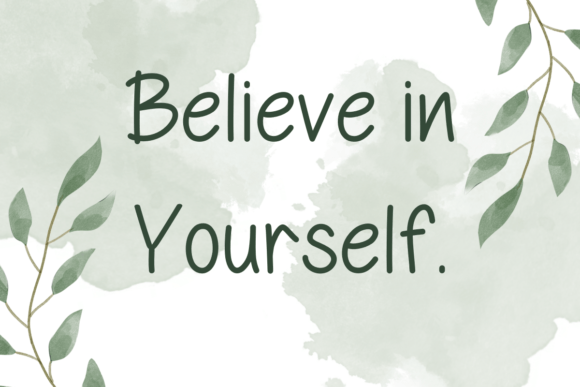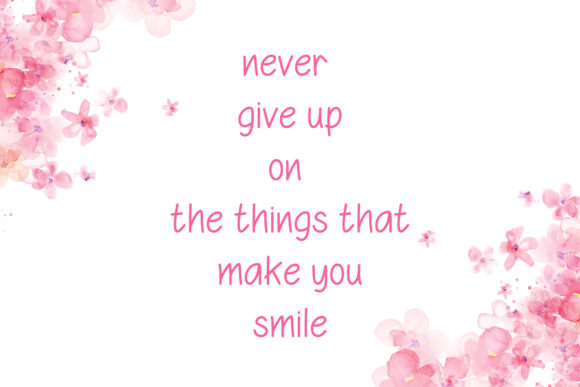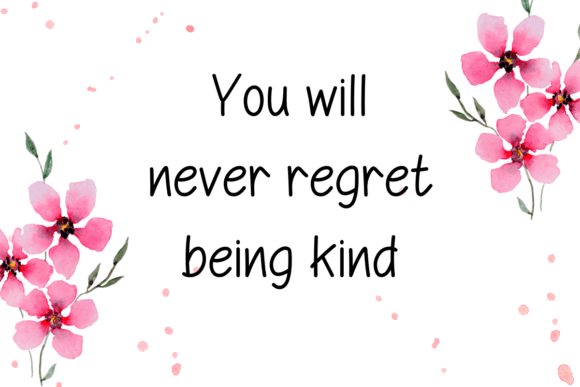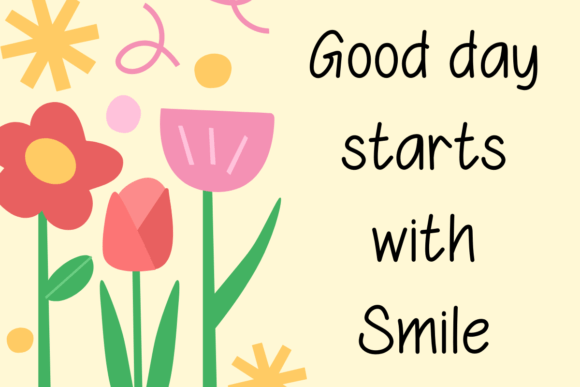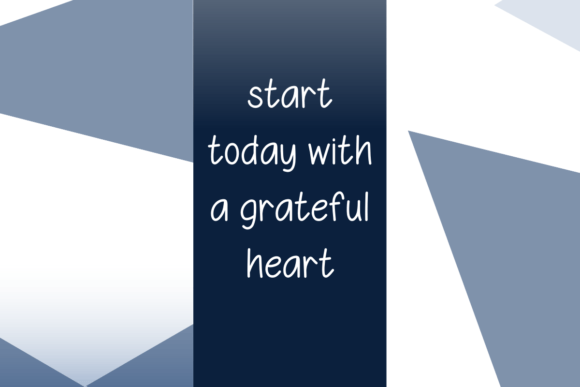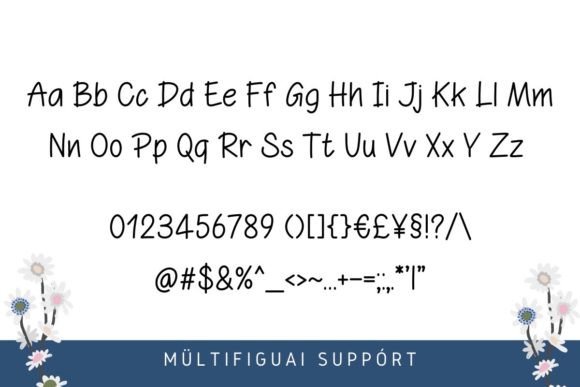
Introducing Friends Font: The Ultimate Groovy Handwritten Display Font
Are you a designer or crafter looking for a font that can add a touch of personality and whimsy to your creative projects? Look no further than Friends Font, a cute and groovy handwritten display font that’s perfect for a wide range of applications. From designing T-shirts and tote bags to creating wedding invitations, logos, and cards, Friends Font is the ideal choice for anyone who wants to make their ideas stand out and shine.
What Makes Friends Font So Special?
Friends Font is a unique and stylish handwritten display font that’s been carefully crafted to bring a touch of nostalgia and playfulness to your designs. Its groovy and laid-back vibe makes it perfect for designers and crafters who want to create fun, youthful, and eye-catching designs that appeal to a wide range of audiences.
Whether you’re designing for a client or working on a personal project, Friends Font is the perfect choice for anyone who wants to add a personal touch to their work. Its versatility and flexibility make it suitable for a wide range of applications, from fashion and lifestyle to wedding and event design.
What Can You Use Friends Font For?
The possibilities are endless with Friends Font! This amazing font can be used for:
- Designing T-shirts, hoodies, and other apparel
- Creating custom tote bags, hats, and stickers
- Designing wedding invitations, save-the-date cards, and other event materials
- Developing logos, branding materials, and packaging
- Crafting cards, quotes, and other stationery items
- And so much more!
Why Choose Friends Font?
So, why should you choose Friends Font for your next design project? Here are just a few reasons:
- Unique and stylish: Friends Font is a one-of-a-kind font that’s sure to make your designs stand out from the crowd.
- Easy to read: Despite its playful and handwritten style, Friends Font is surprisingly easy to read, making it perfect for use in a wide range of applications.
- Versatile: Friends Font can be used for both personal and commercial projects, and its flexibility makes it suitable for a wide range of design applications.
- Groovy and fun: Let’s face it – Friends Font is just plain fun! Its groovy and laid-back vibe makes it perfect for designers and crafters who want to add a touch of personality to their work.
Here are a few tips for getting the most out of Friends Font:
- Experiment with different colors: Friends Font looks great in a wide range of colors, so don’t be afraid to get creative and try out different hues and combinations.
- Play with font sizes: Friends Font can be used at a variety of font sizes, from large and bold to small and subtle.
- Add some texture: Consider adding some texture or patterns to your design to give it an extra boost of personality and style.
If you’re looking for a font that can add a touch of personality and whimsy to your designs, look no further than Friends Font. This cute and groovy handwritten display font is perfect for designers and crafters who want to create fun, youthful, and eye-catching designs that appeal to a wide range of audiences.